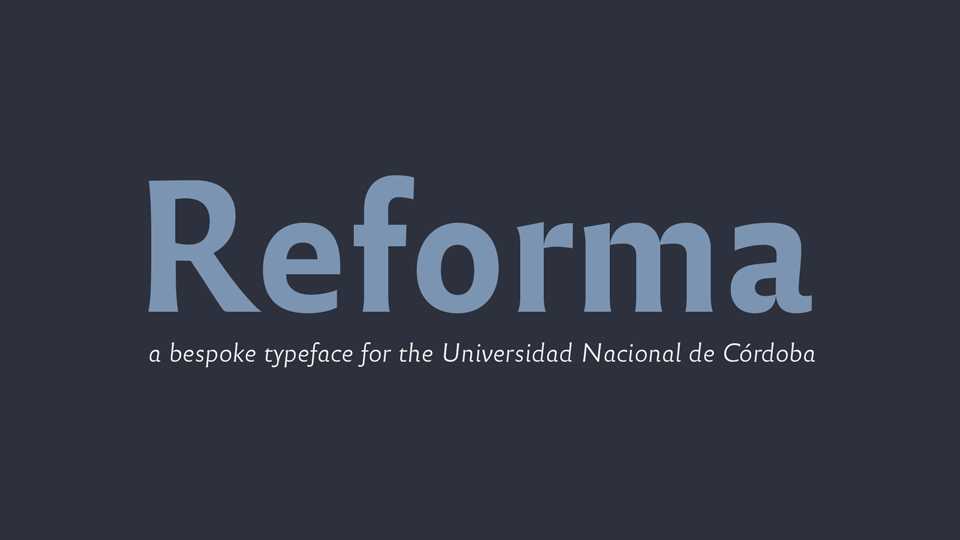
Download Reforma font, a multistyle typeface composed of three subfamilies. All three styles of Reforma behave finely in a wide range of bodies from display to immersive text.